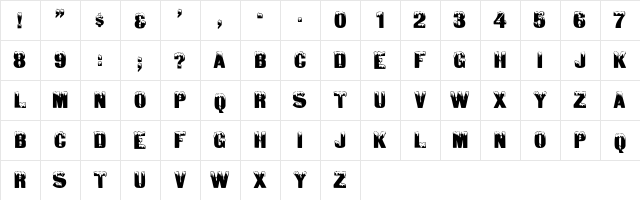
84 Regular Font Preview
84 Regular
Design Context for 84 Typeface
84 is a composed and adaptable typeface that performs quietly and consistently across a wide range of design contexts.